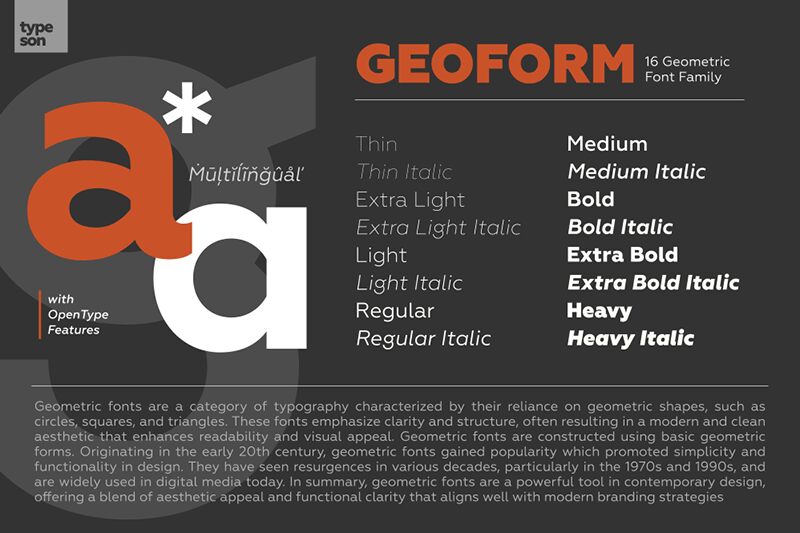
Geoform-HeavyItalic
Geometric fonts are a category of typography characterized by their reliance on geometric shapes, such as circles, squares, and triangles. These fonts emphasize clarity and structure, often resulting in a modern and clean aesthetic that enhances readability and visual appeal. Geometric fonts are constructed using basic geometric forms.
Originating in the early 20th century, geometric fonts gained popularity which promoted simplicity and functionality in design. They have seen resurgences in various decades, particularly in the 1970s and 1990s, and are widely used in digital media today. In summary, geometric fonts are a powerful tool in contemporary design, offering a blend of aesthetic appeal and functional clarity that aligns well with modern branding strategies
Geoform
Heavy Italic
Typeson: Geoform Heavy Italic: 2023
Typeson